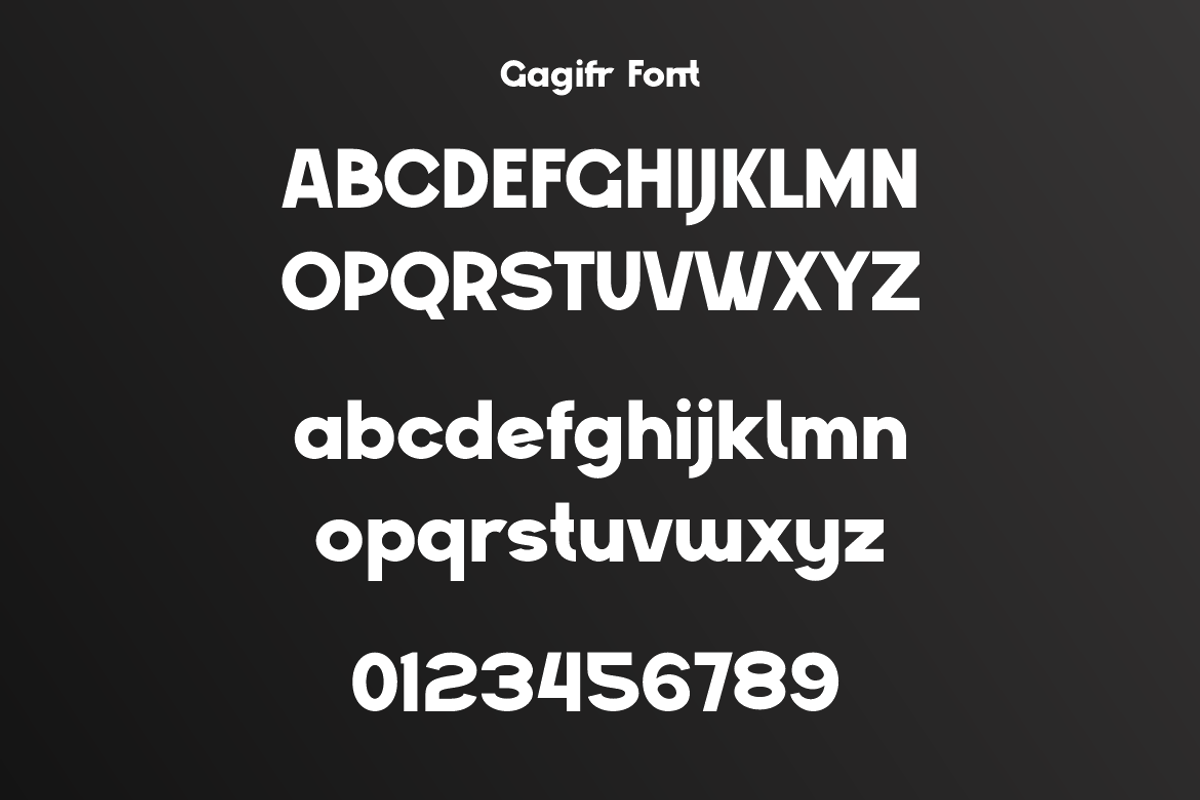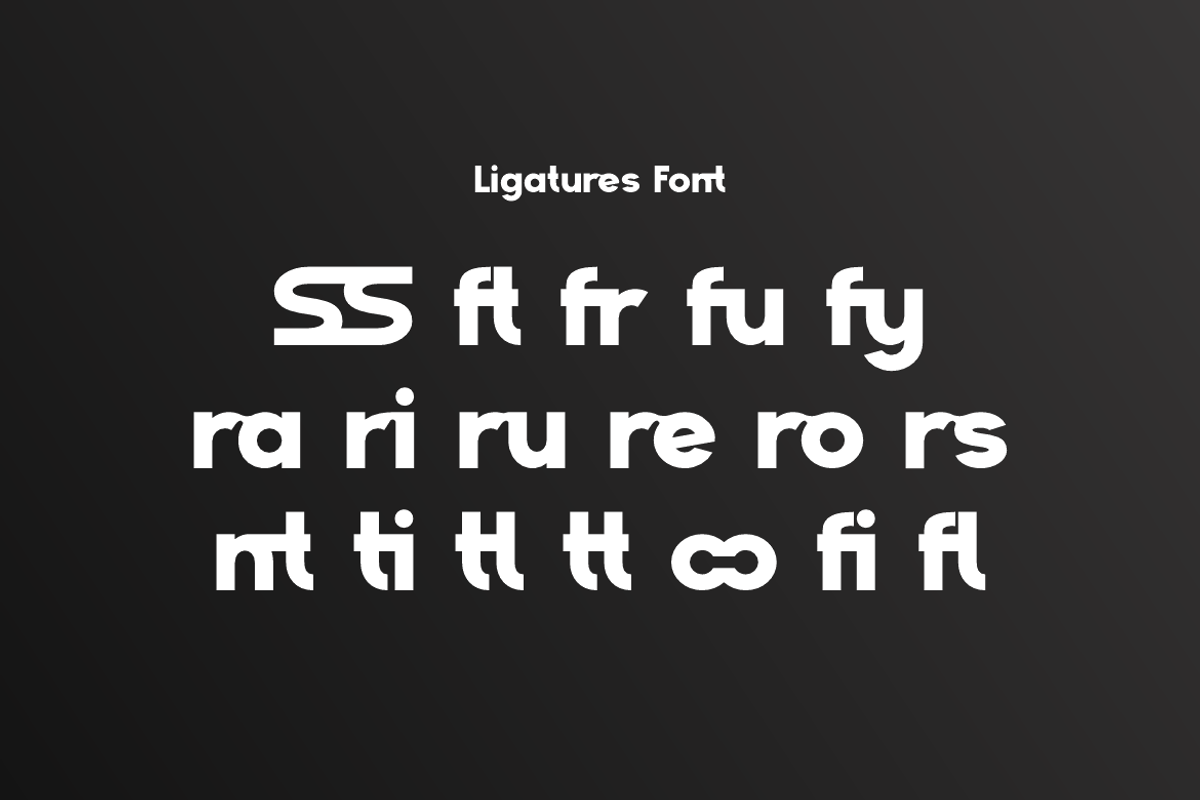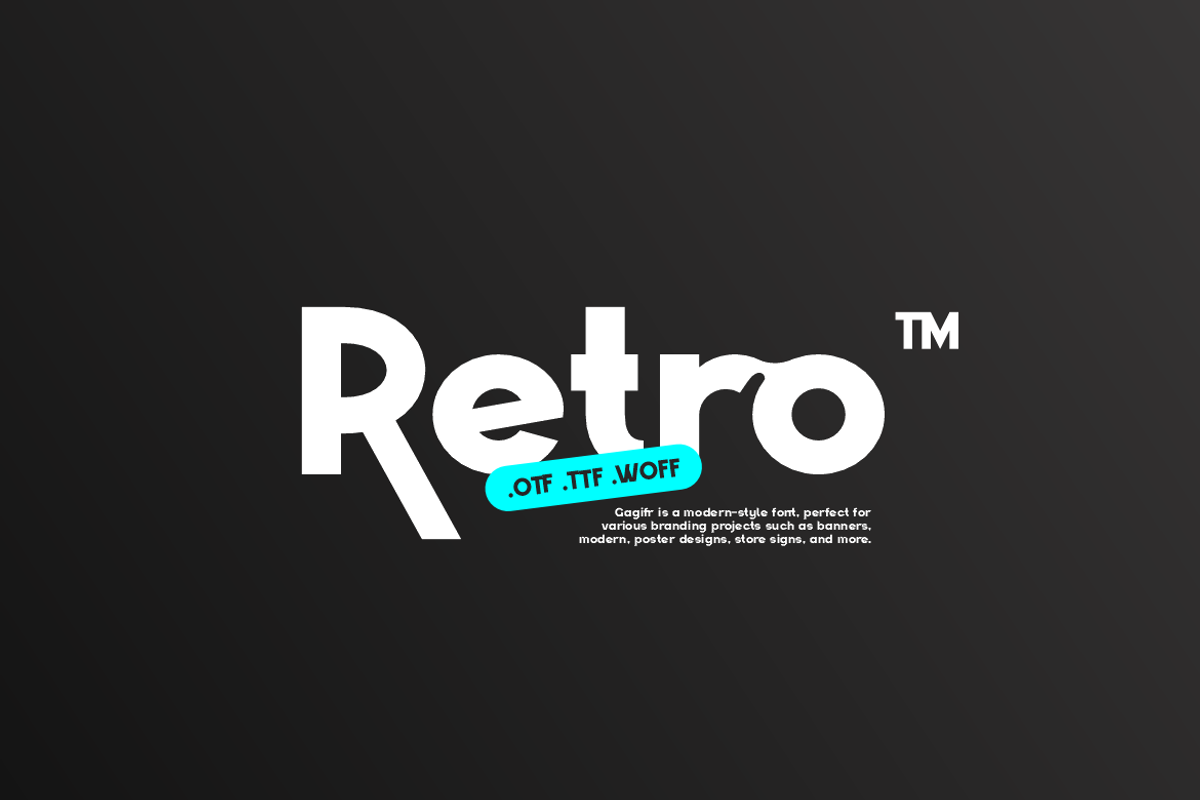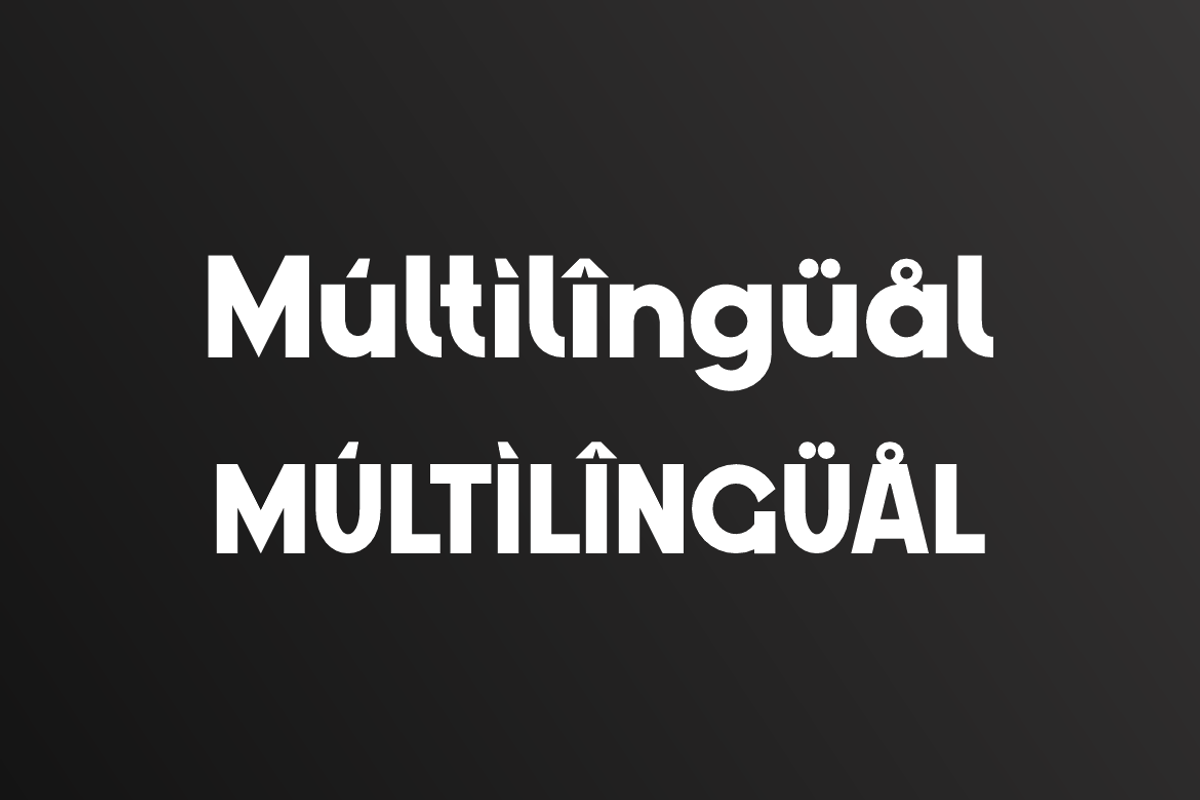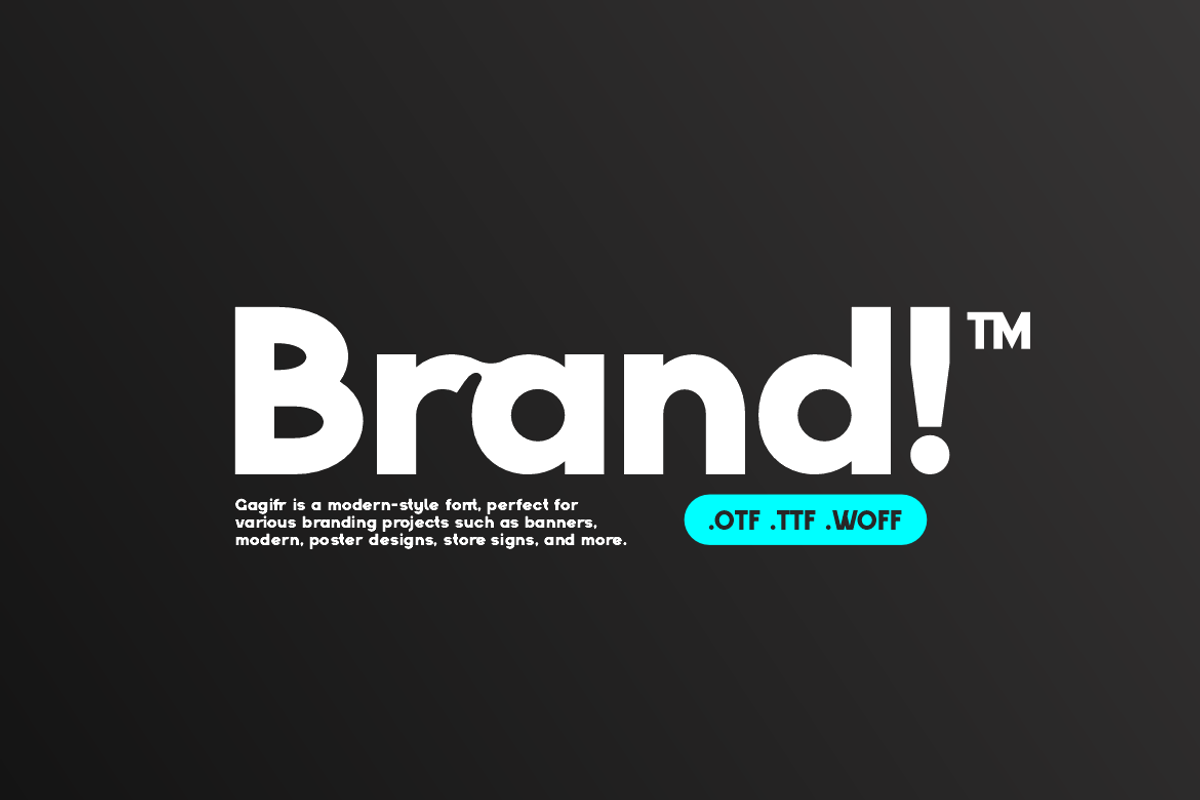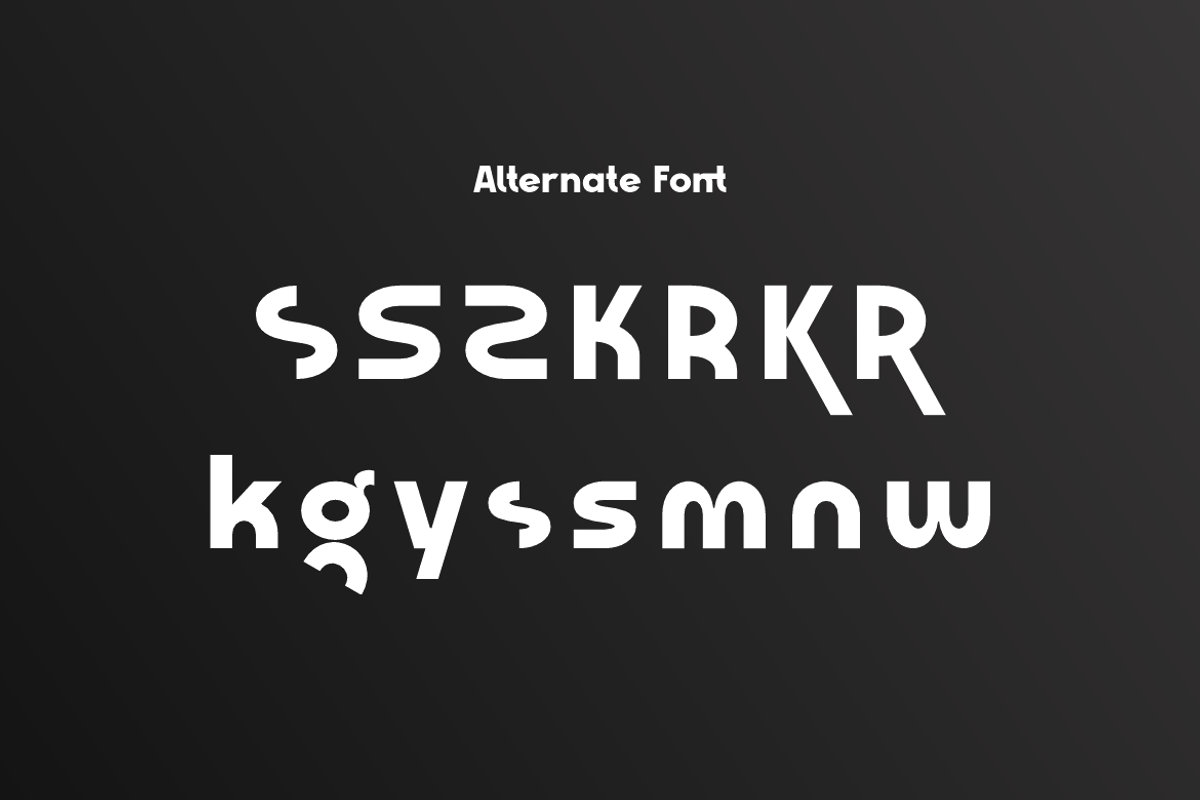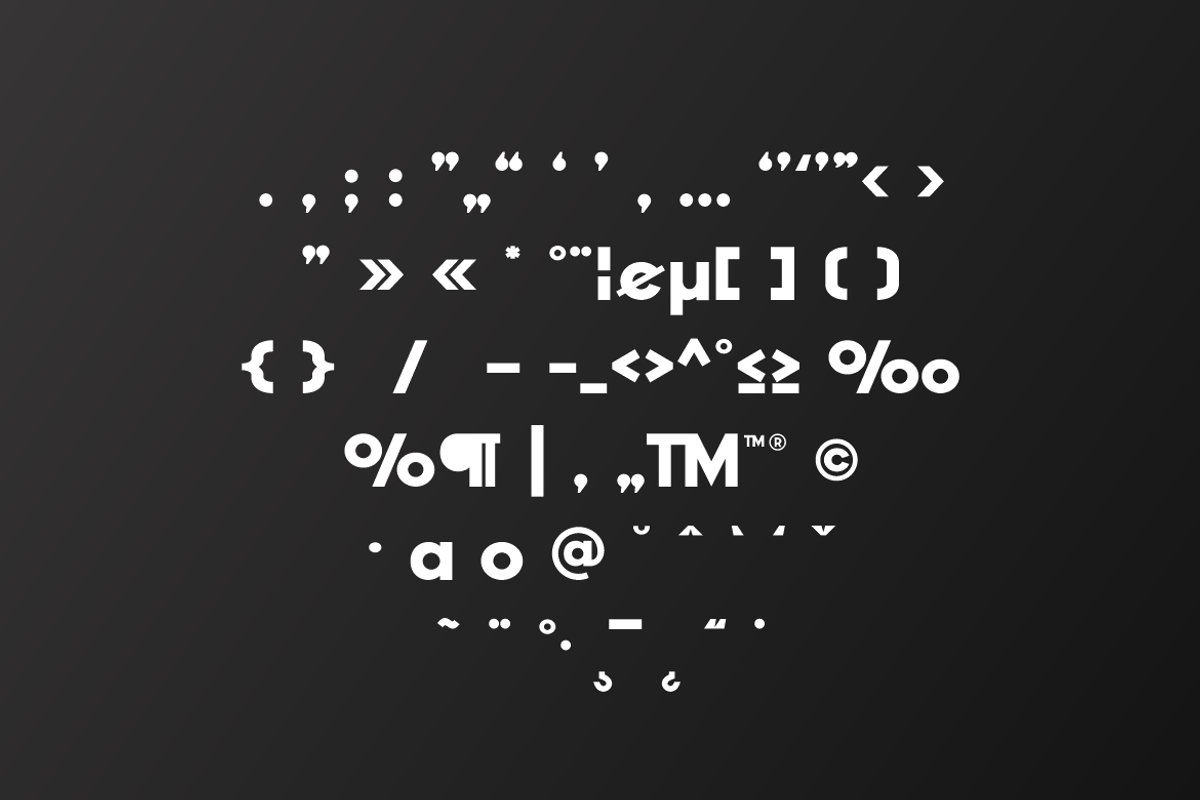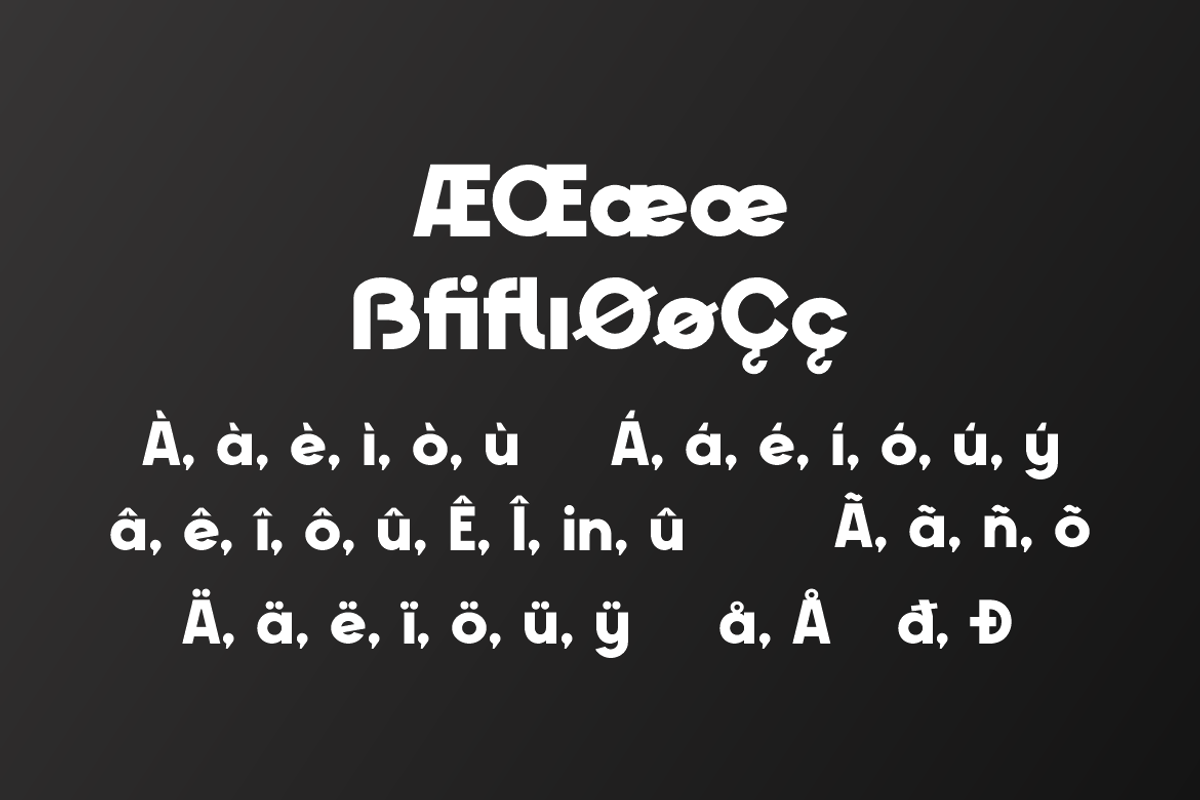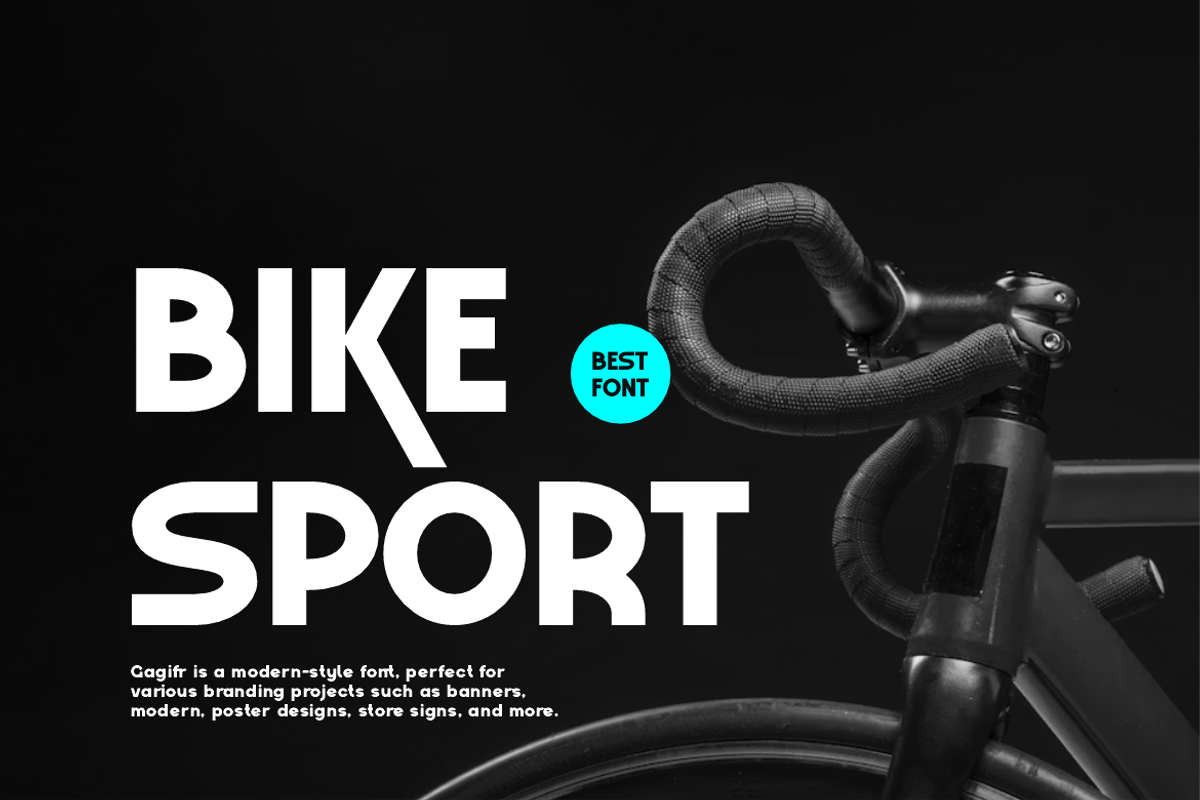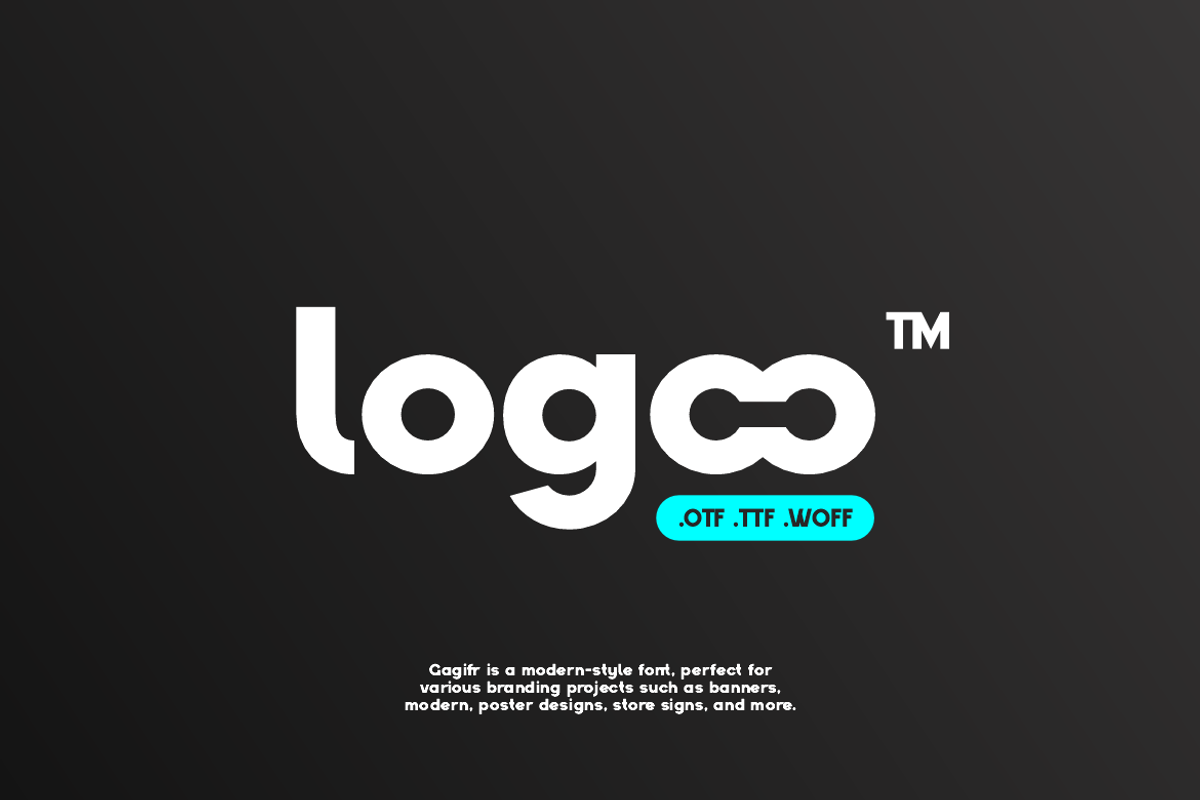
Gagifr - Bold Display Sans Font
Gagifr Font is a bold and authentic display typeface that suits a variety of design needs. We offer a wide range of themes and font styles — visit our profile to explore more and find the perfect style for your project.